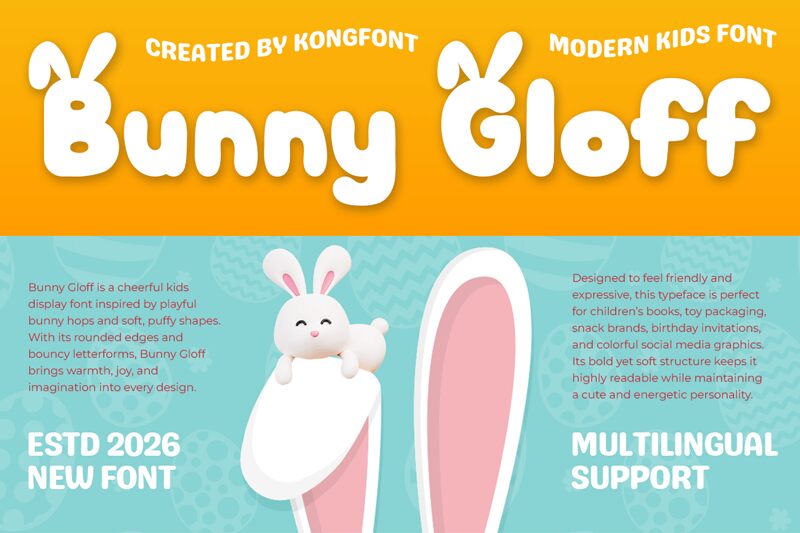
Bunny Gloff font by Kong Font is a modern holiday and child-like font available as a free font. It displays characters with broad lettering and a style which communicates fun and excitement. It is friendly, inviting, soft, and playful while also being modern and approachable, offering something for everyone.
The font is great for creating headlines and all sizes of paragraphs as well as for print and digital applications and environments. Use this font for posters, social media graphics, advertisements, product packaging, games, books, logos, or typography artworks. You can also use the font for stickers, apparel, or practically anything else.